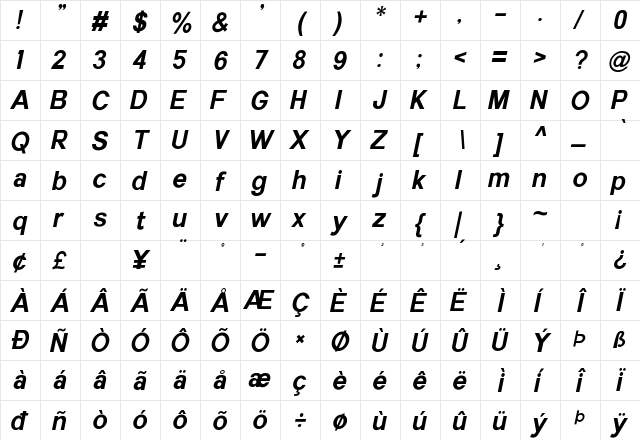
Havertize Italic Font Preview
Havertize Italic
Havertize Italic Font Details
| Designer | Fachranheit 2020 |
Design Context for Havertize Typeface
Havertize offers clean, dependable letterforms without strong stylistic allegiance, making it a practical choice for designers who need flexibility. Its italic angle brings a sense of urgency and motion to the letterforms.
Pro Tip: Use Havertize for emphasis, pull quotes, and subheadings where its slanted energy can add rhythm to the layout.